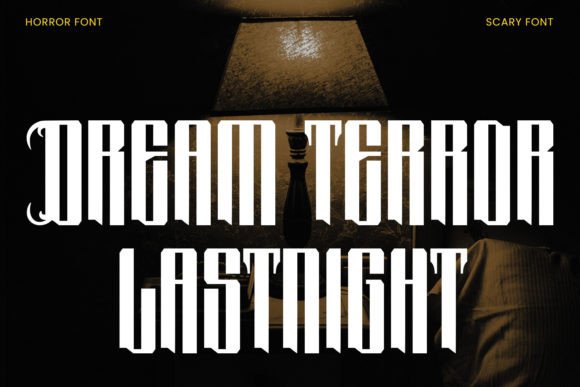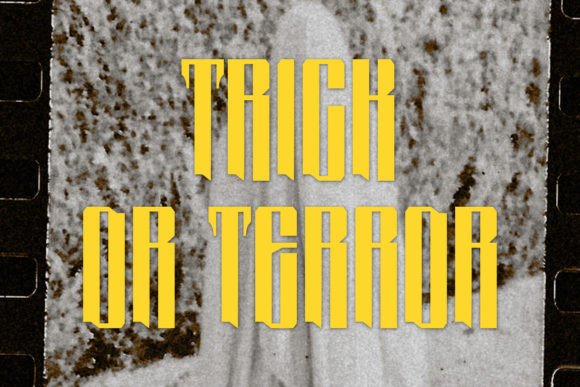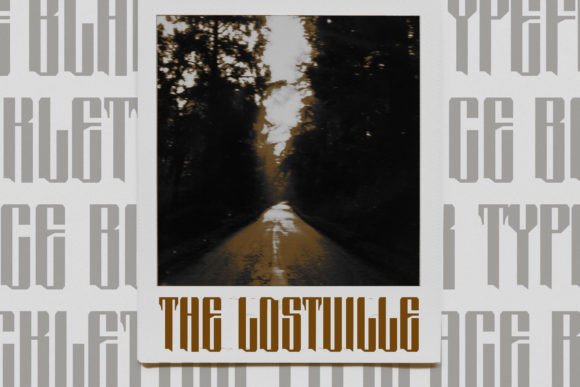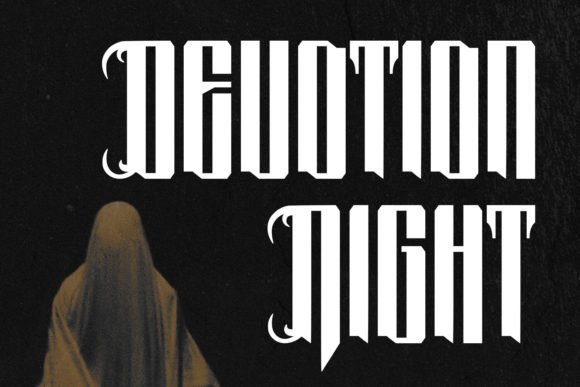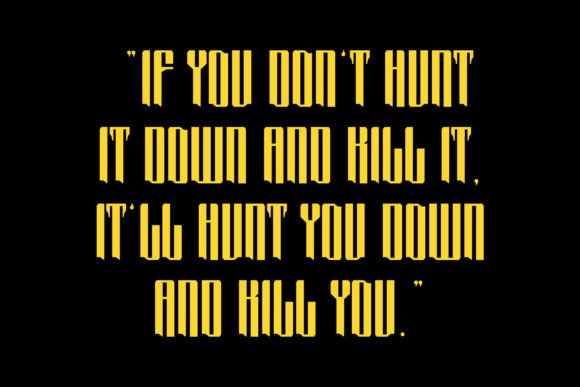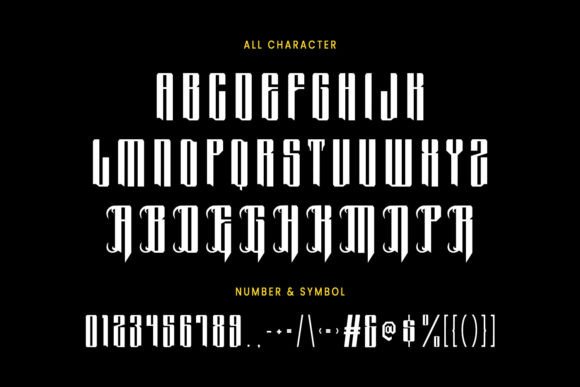
Introduction to Groghrz Font
Give your designs an authentic black and old feel.
โGroghrz Blackletter DIsplay Horror Fontโ is perfectly suited to display, stationery, logo, typography quotes, magazine or book covers, website headers, clothing, branding, packaging design, and more .
Key Features of Groghrz Font